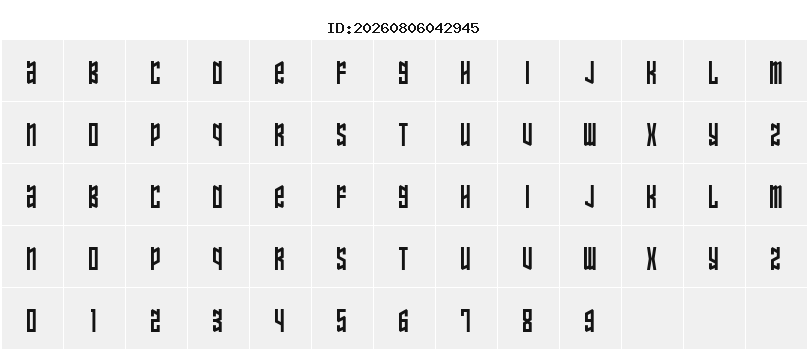
• Font Name: Ozone Layer
• Font ID: Ozone Layer
• Full Font Name: Ozone Layer
• Version: 2
• PostScript Name: OzoneLayer
• Character Count: 160
About Ozone Layer.ttf
Ozone Layer.ttf is a modern, elegant sans-serif font designed for ultimate readability and visual harmony. Perfect for branding, headlines, web design, and print materials.